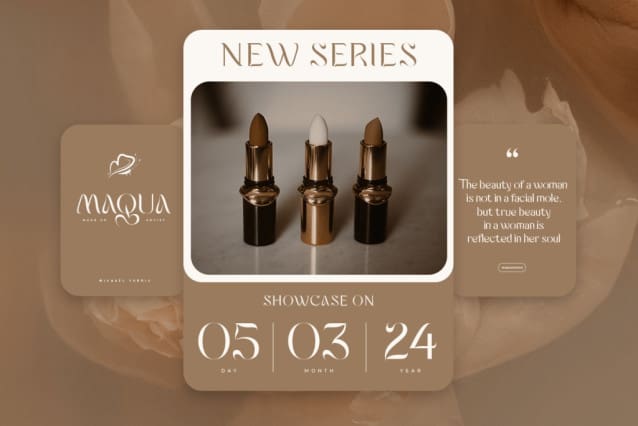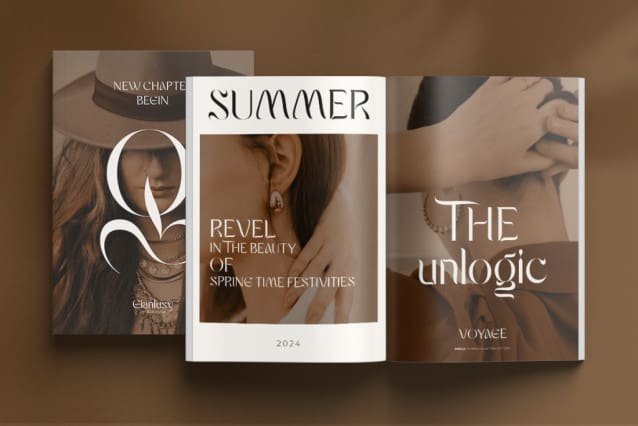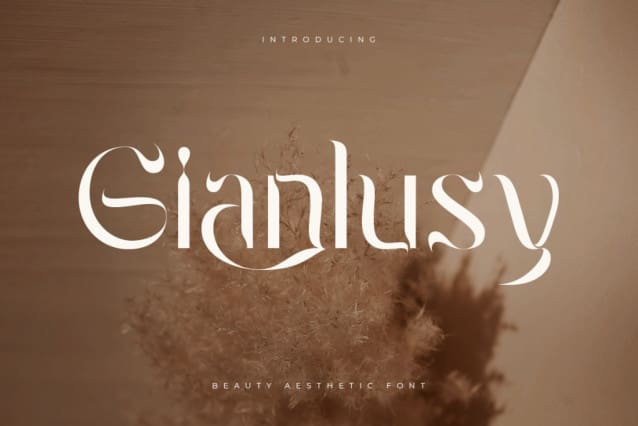
Gianlusy Font
Gianlusy Font – Beauty Aesthetic Font, a captivating typeface tailored for fashion and beyond. With timeless elegance, it’s perfect for branding, agency work, landing pages, logos, and more. GianlusyFont exudes sophistication, elevating every project with its refined allure.